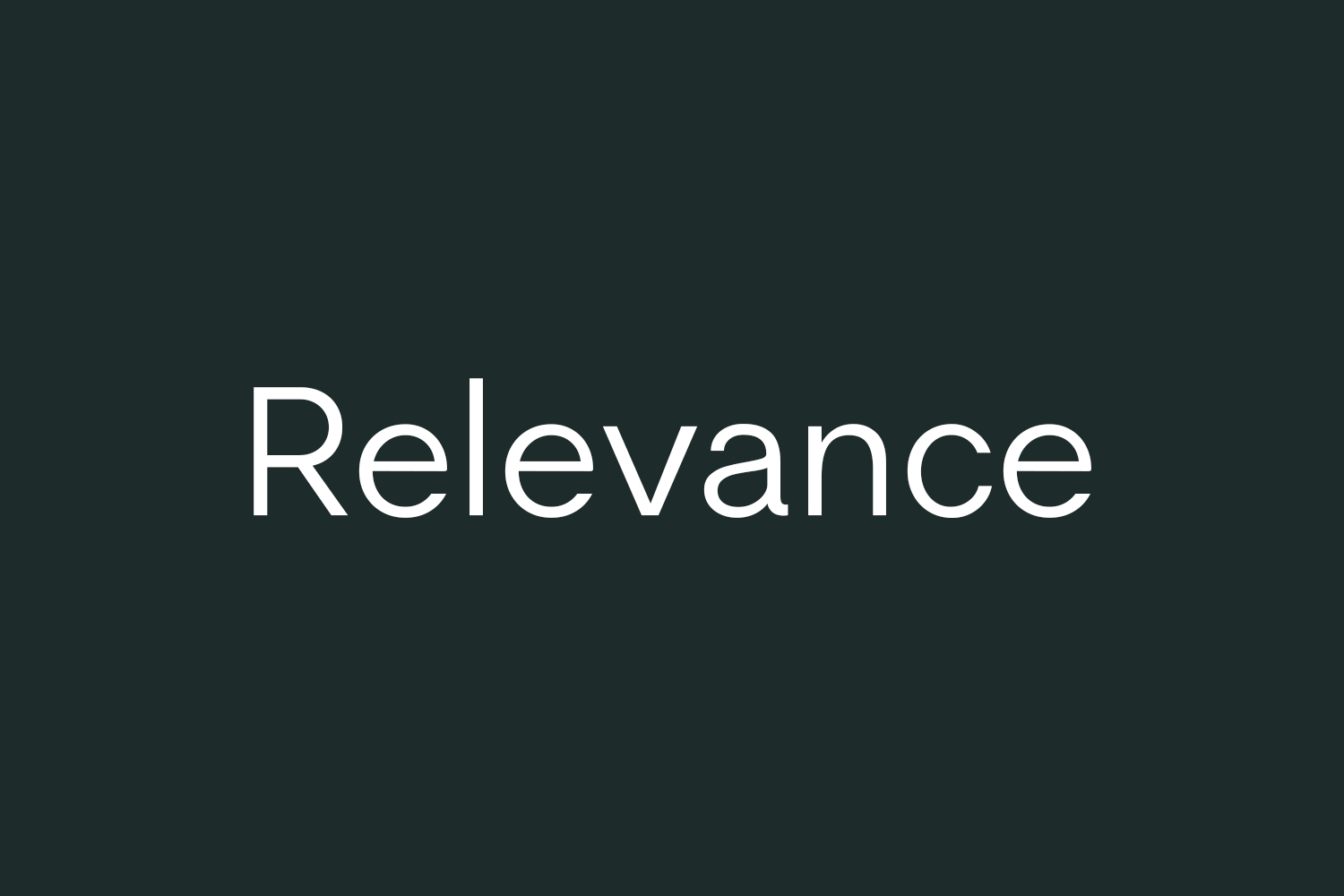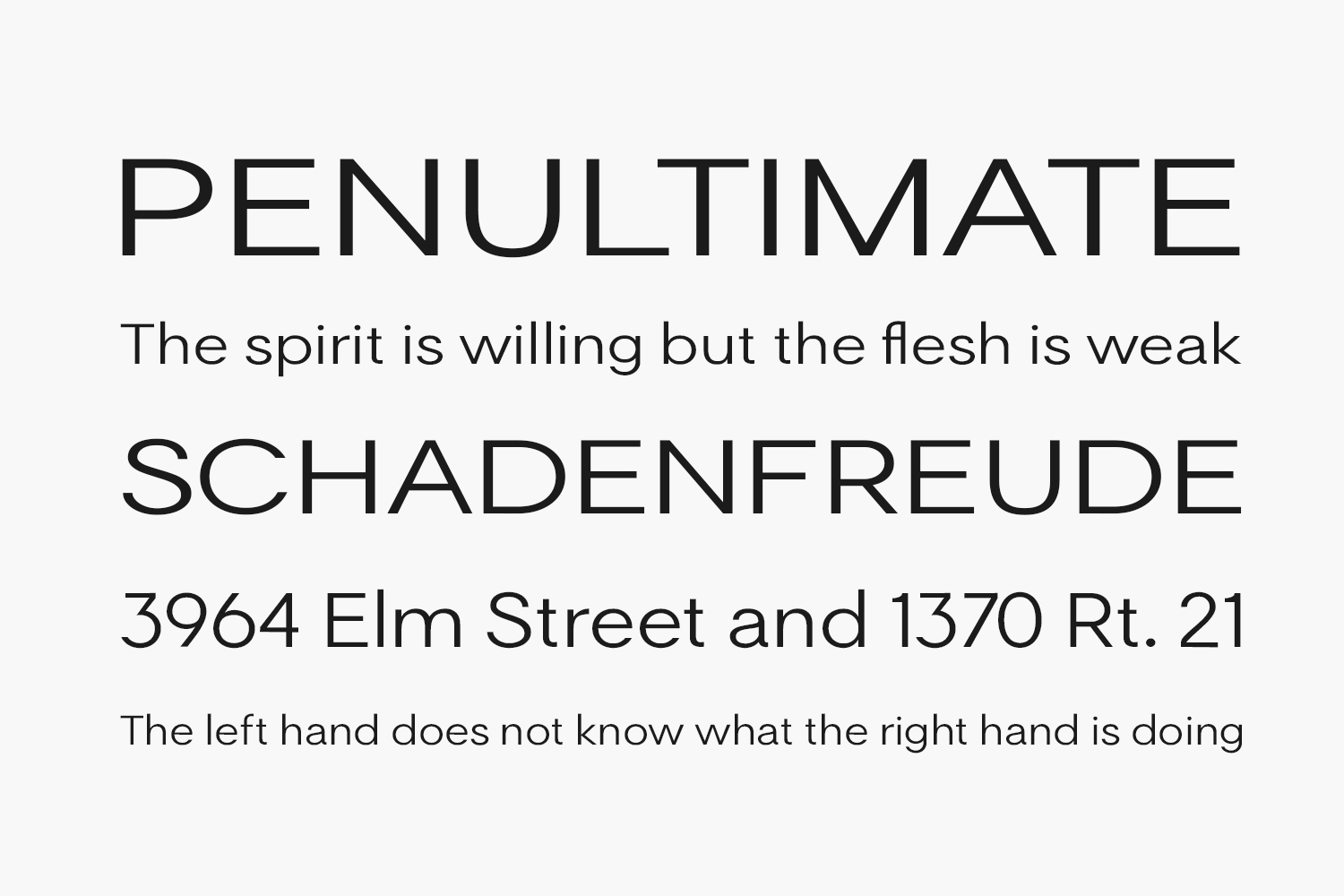
Discover Relevance Free Font Family, a versatile and elegant sans-serif font designed to elevate your projects. Whether it’s logos, weddings, invitations, quotes, advertisements, print materials, or magazines, Relevance brings a touch of modern sophistication to any context. Unlock its potential and watch your creative ideas flourish with vibrancy and style. Download the font for free if you need it for personal use or purchase the full version for commercial use.
Designed by Chromatype Studio